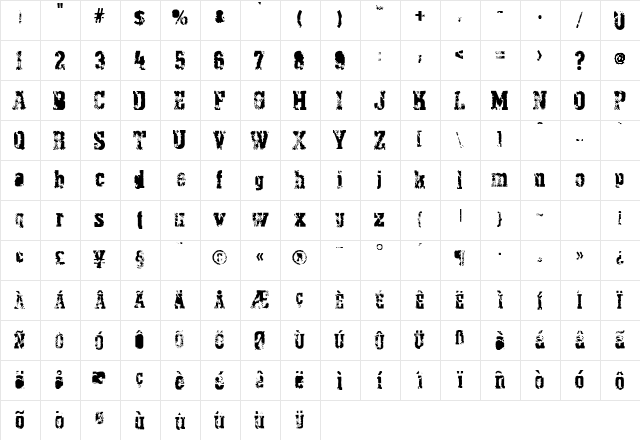
PythonianDeluxe Regular
Design Context for PythonianDeluxe Typeface
PythonianDeluxe is a composed and adaptable typeface that performs quietly and consistently across a wide range of design contexts.